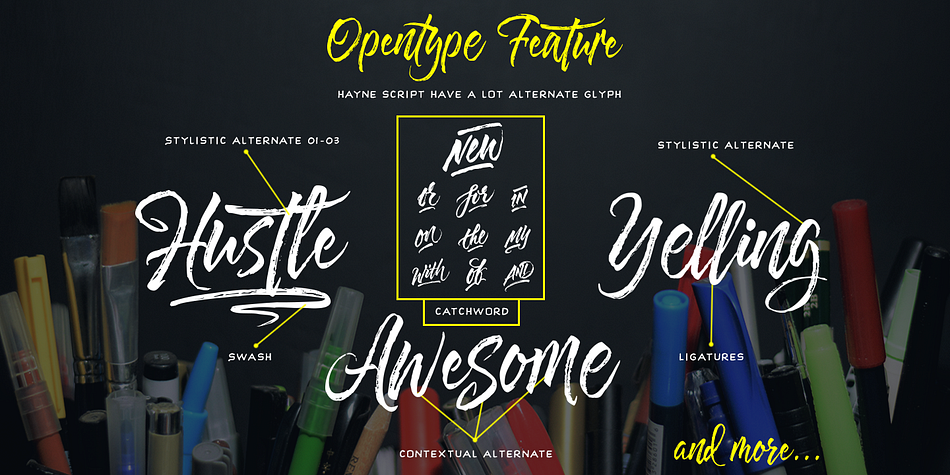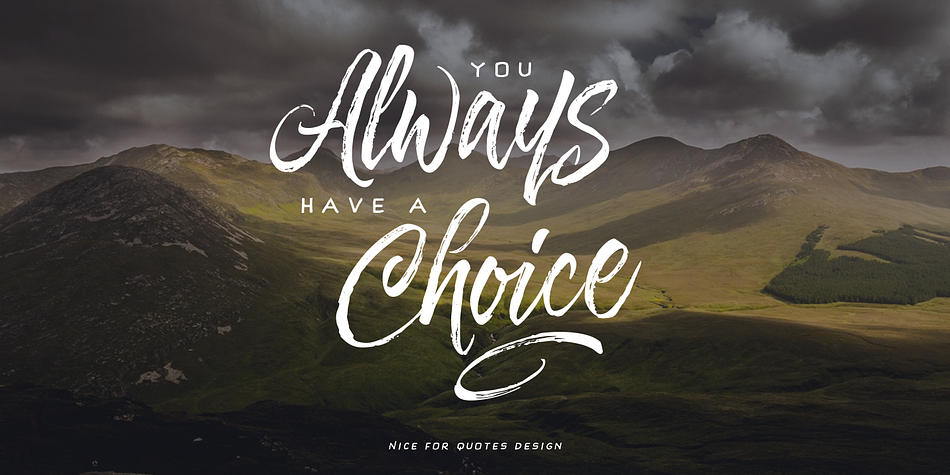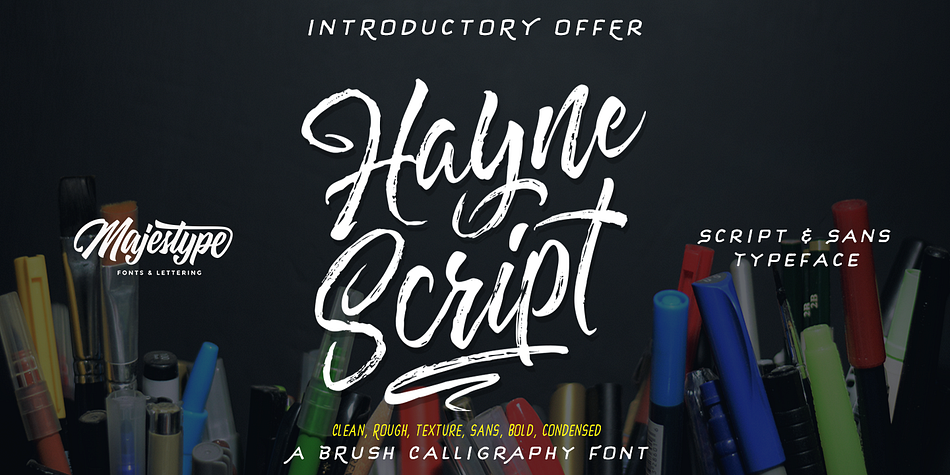
Hayne
Designed by Dexsar Harry Anugrah, Hayne is a brush script and display sans font family. This typeface has seven styles and was published by Majestype.
Hayne Script + Sans were made with a brushpen and regular pen.
It comes with a lot glyphs, 3 styles for Script, international languages for Script and Standard Glyph for Sans Version.
We deliberately made the drying effect in this font to look natural and as handwriting would be.
Also, we created the clean version to make this font suitable for headlines.
The font family supports OpenType features, that can allow you to choose a character that you like and is suitable for the project you
Hayne is a a seven font family.
Hayne is a seven font, brush script and display sans family by Majestype.
Hayne is designed by Dexsar Harry Anugrah and OpenType features include Contextual Alternates, Standard Ligatures and Swashes.
Designed by Dexsar Harry Anugrah, Hayne is a brush script and display sans font family.
Hayne Script + Sans were made with a brushpen and regular pen. It comes with a lot glyphs, 3 styles for Script, international languages for Script and Standard Glyph for Sans Version. It can be a new great tool for your next project. We deliberately made the drying effect in this font to look natural and as handwriting would be. Also, we created the clean version to make this font suitable for headlines.
The font family supports OpenType features, that can allow you to choose a character that you like and is suitable for the project you’re working on. If you want to access all characters, you need software that supports OpenType Feature like Illustrator, Photoshop, Indesign & CorelDraw.